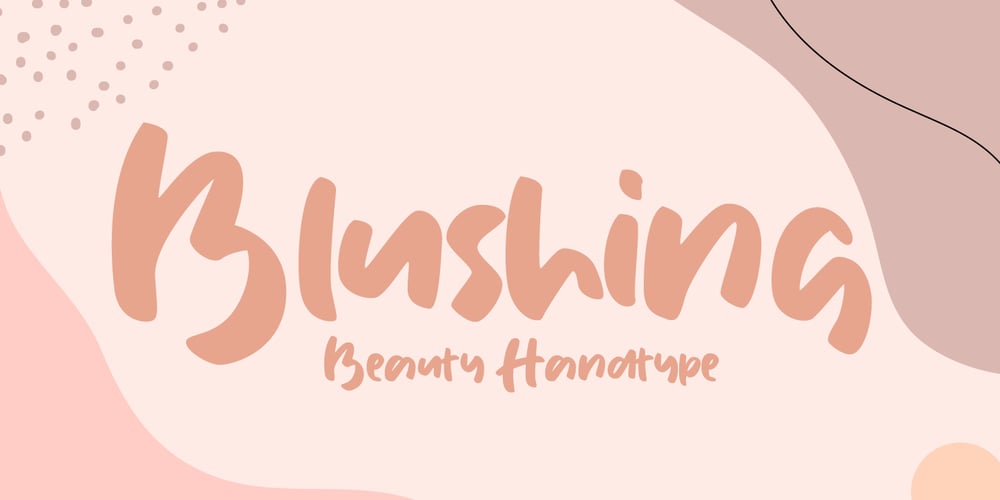
Blushing
Blushing font
Blushing Font Family was designed by Stefie Justprince and published by Crumphand. Blushing contains 1 styles and family package options. Hello, introducing new font, its called Blushing. Blushing is natural beauty handtype.im making this font for specific product. this font very match for your beauty product : Cosmetic, Cream product, Nail art, Spa & Beauty, Lipstick, Shampoo and etc. You can mix and match with regular font.what’s included inside the font ? Uppercase Lowercase Numeral & Punctuation Multilinguals Standart Ligatures Thank You!